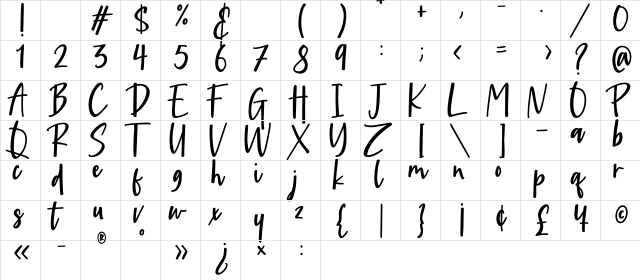
Childish Regular
| Designer | Balpirick Studio |
Childish trades formality for fun, with bouncy, characterful letterforms that bring warmth and energy to any project.
Font Pairing: Pairs well with a rounded or humanist sans for body copy, maintaining the friendly tone without relying on Childish to carry extended reading.
Pro Tip: Use Childish at larger display sizes where its expressive character can land. Pair with a clean, simple sans for body copy to maintain readability.